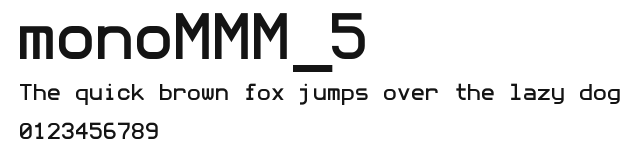
• Font Name: monoMMM_5
• Full Font Name: monoMMM_5
About monoMMM_5.ttf
monoMMM_5.ttf is a modern, elegant sans-serif font designed for ultimate readability and visual harmony. Perfect for branding, headlines, web design, and print materials.